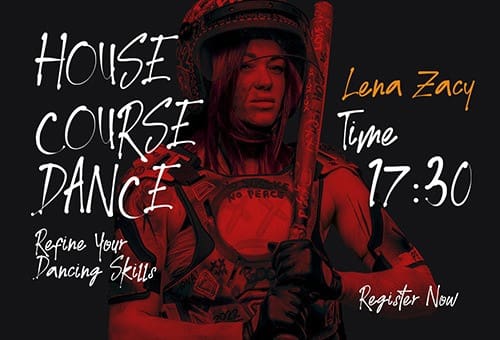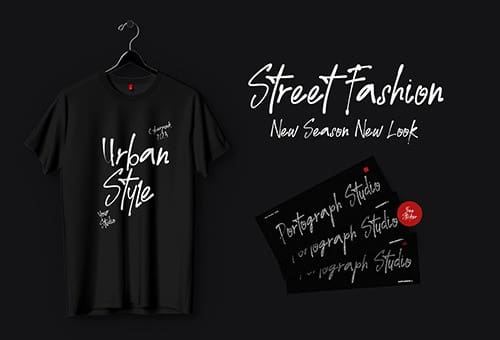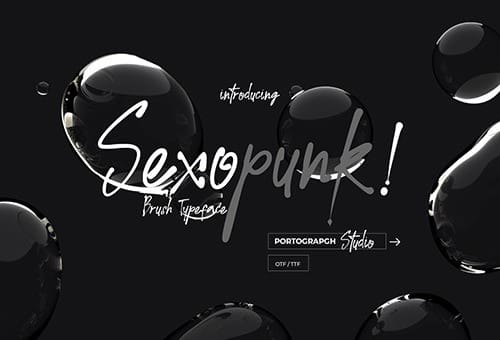
PTG Sexopunk Font
PTG Sexopunk Font, this typeface has a unique and attractive appearance. PTGSexopunk looks great when combined with solid character fonts.
For branding projects, logos, wedding designs, social media posts, advertisements, product packaging, product designs, labels, photography, watermarks, invitations, stationery, and anything requiring handwritten taste, PTGSexopunk is perfect.